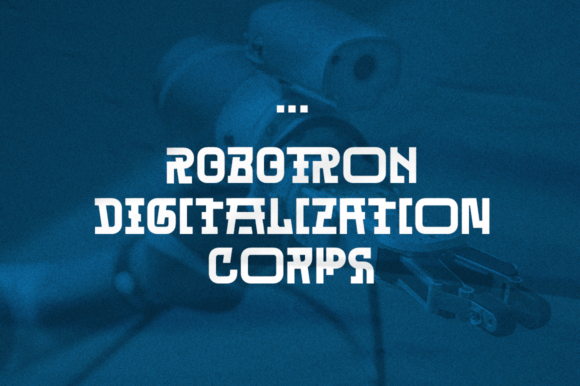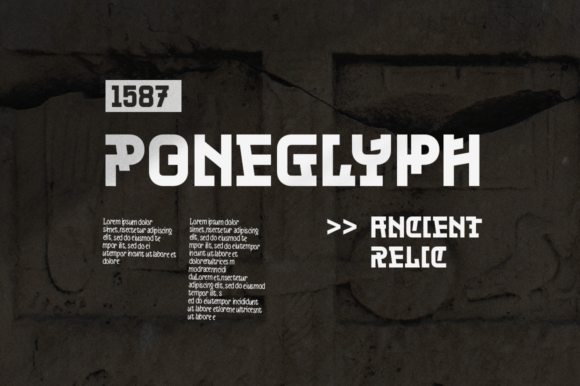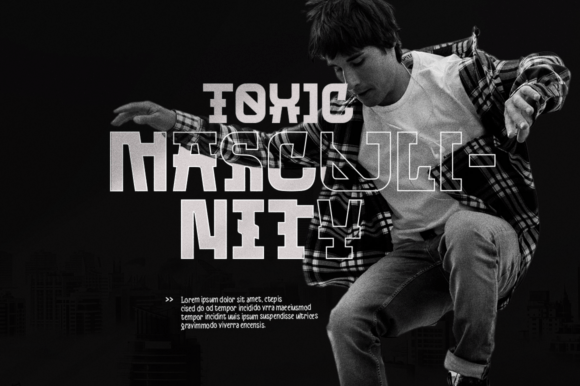
Introduction to Marbot Font
Have you ever found yourself stuck on a design project, struggling to convey the perfect blend of modernity and futurism? It’s that moment of creative paralysis when the perfect font can be the game-changer you need. For designers, a high-quality font can elevate a project from good to great, and the Marbot Font is no exception.
As a design resource, Marbot Font offers a unique fusion of simplicity and flair, making it an ideal choice for creative projects requiring a bold and sophisticated visual statement. With its transparent background and free download availability, designers can effortlessly incorporate this innovative typeface into their work, taking their projects to the next level.
Whether you’re crafting a logo, designing a digital interface, or creating a captivating headline, the Marbot Font’s elegance and modernity will undoubtedly leave a lasting impression. In this article, we’ll delve into the world of Marbot Font, exploring its features, applications, and why it’s a valuable addition to any designer’s toolkit.
Key Features of Marbot Font
- High-quality design resource suitable for creative projects, with a unique, modern style.
Honest Review: Marbot Font
I recently stumbled upon the Marbot Font and I must say, it’s a great addition to any designer’s toolkit. With a high quality design that’s perfect for a creative project, this font is sure to impress.
- ✨ Clean and modern design that’s perfect for a variety of projects
- ✨ Transparent background makes it easy to use in any design environment
One of the things I love about the Marbot Font is its versatility. It’s great for both digital and print projects, and the clean design makes it easy to read.
- ⚠️ Limited character set, which may not be suitable for all projects
- ⚠️ Not all languages are supported, which may be a limitation for designers working on global projects
Overall, I’m impressed with the Marbot Font. It’s a great design resource that’s perfect for a creative project. While it may have some limitations, it’s a valuable addition to any designer’s toolkit.
The Marbot Font is perfect for various creative projects, including:
- Typography
- Branding